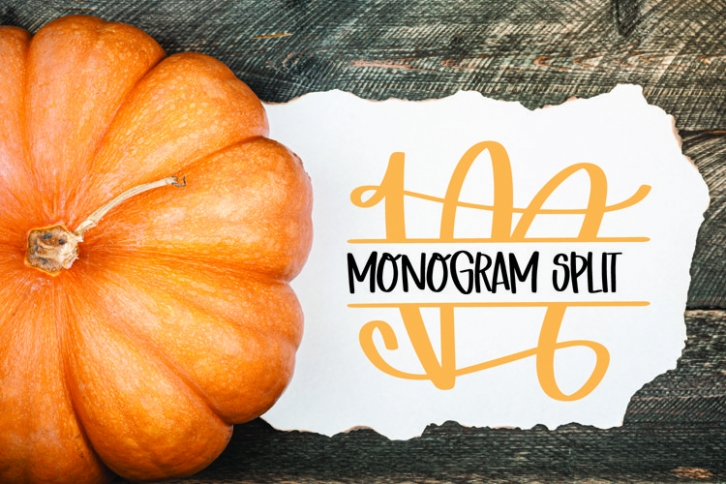
Split Monogram Set is a beautiful font that was designed by plusstore. It's a great choice for designers and creatives who need such a font. It was released on September 24, 2021 and the file size is 13.67 MB. Split Monogram Set may give a more youthful, expressive and casual look to your project. It is a very beautiful, refined, elegant, and high-quality font.